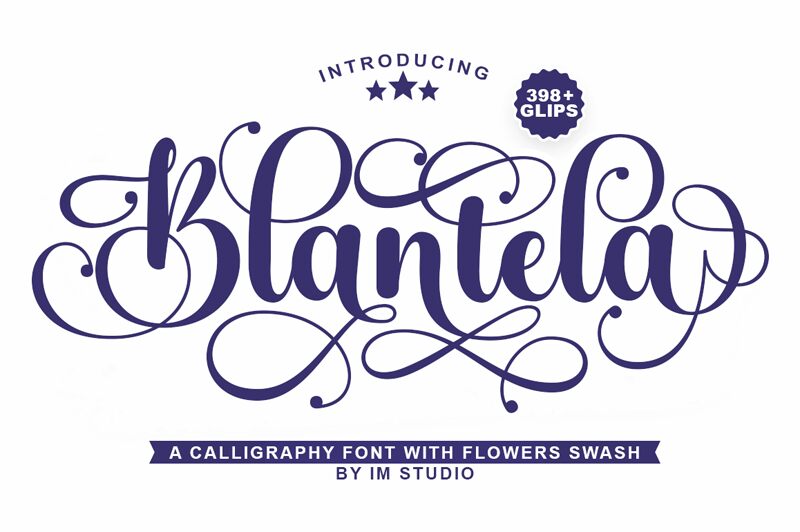
Blantela font designed by IM Studio is a charming free calligraphy font combining style and elegance. Inspired by ornamental handwriting, this font reflects the finest traditional calligraphy in its curly, decorative characters. The expressive design results in sophistication without losing readability.
Use this typeface for magazine covers, business cards, flyers, and posters. Blantela also works for more personal uses like invitations for weddings and parties. With its romantic style, it is a great choice for brands and establishments related to the beauty industry, health, fashion, or related fields.